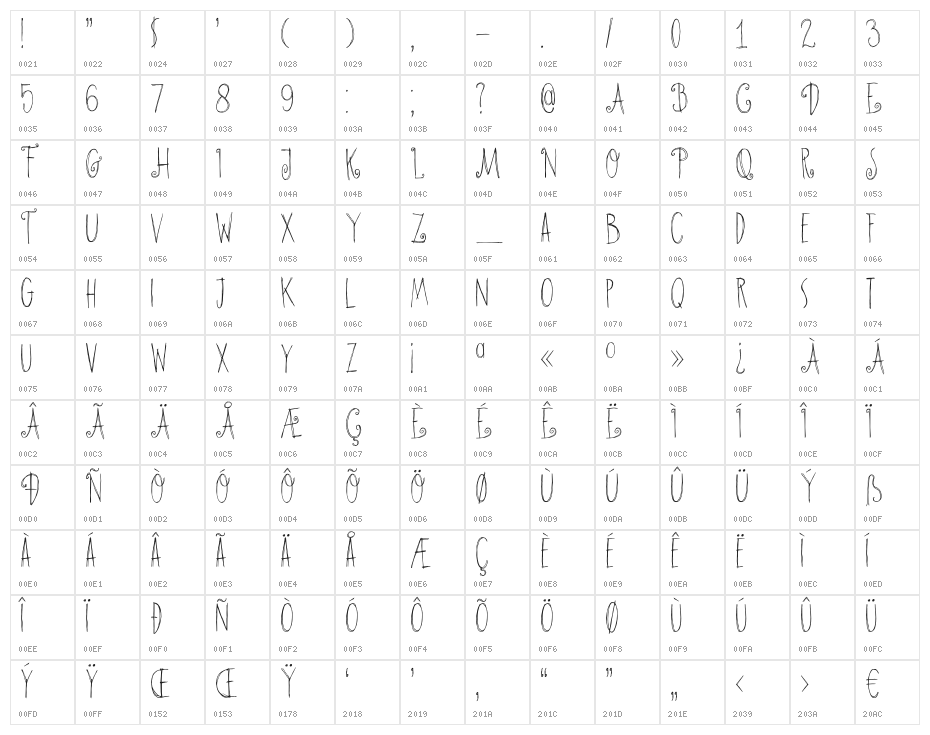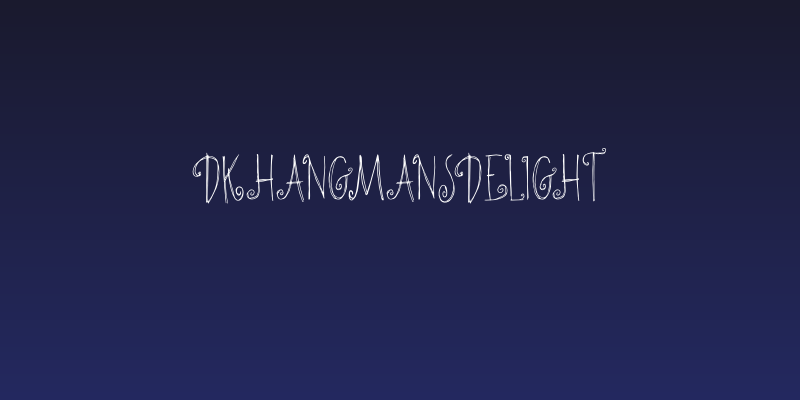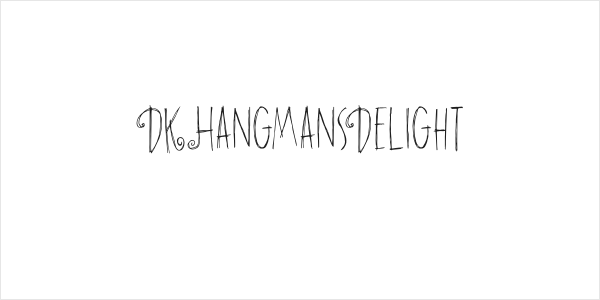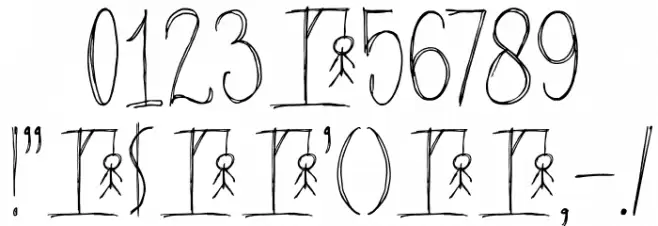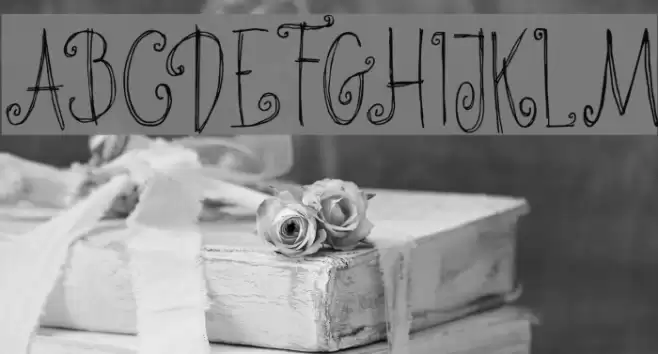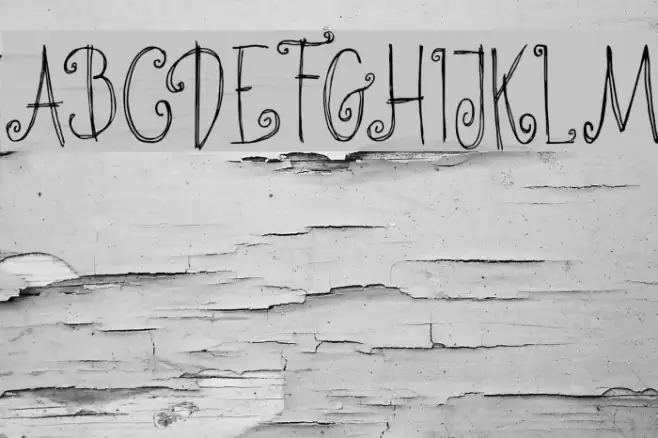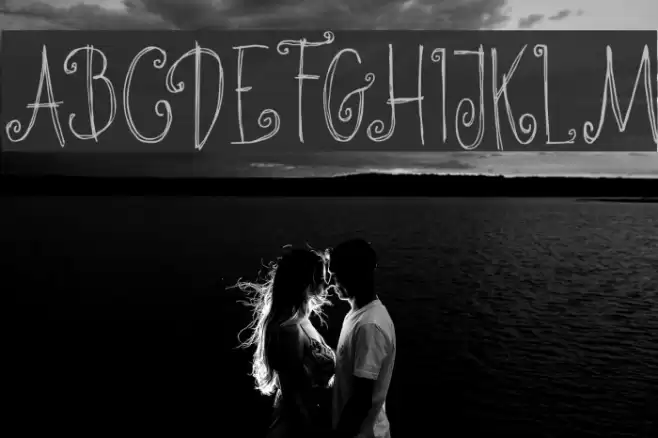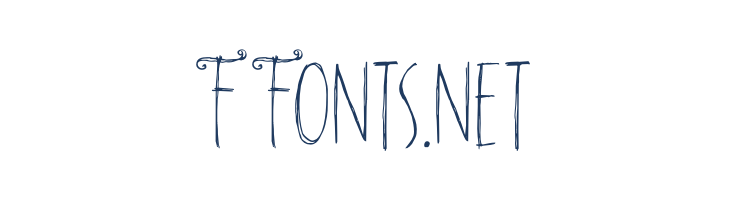
DKHangmansDelight Font
DKHangmansDelight Description
This font features a whimsical and playful design, characterized by its tall, narrow letters with unique spiral embellishments on certain characters. The strokes are uneven, giving it a hand-drawn, artistic feel. The uppercase and lowercase letters maintain a consistent style, with a slightly irregular baseline that adds to its charm. Numbers and special characters follow the same quirky aesthetic, making it suitable for creative and informal projects. The overall look is distinctive and eye-catching, perfect for adding a touch of personality to any design.
| Proposed Projects | Ideal for children's book covers, playful invitations, artistic posters, and creative branding. |